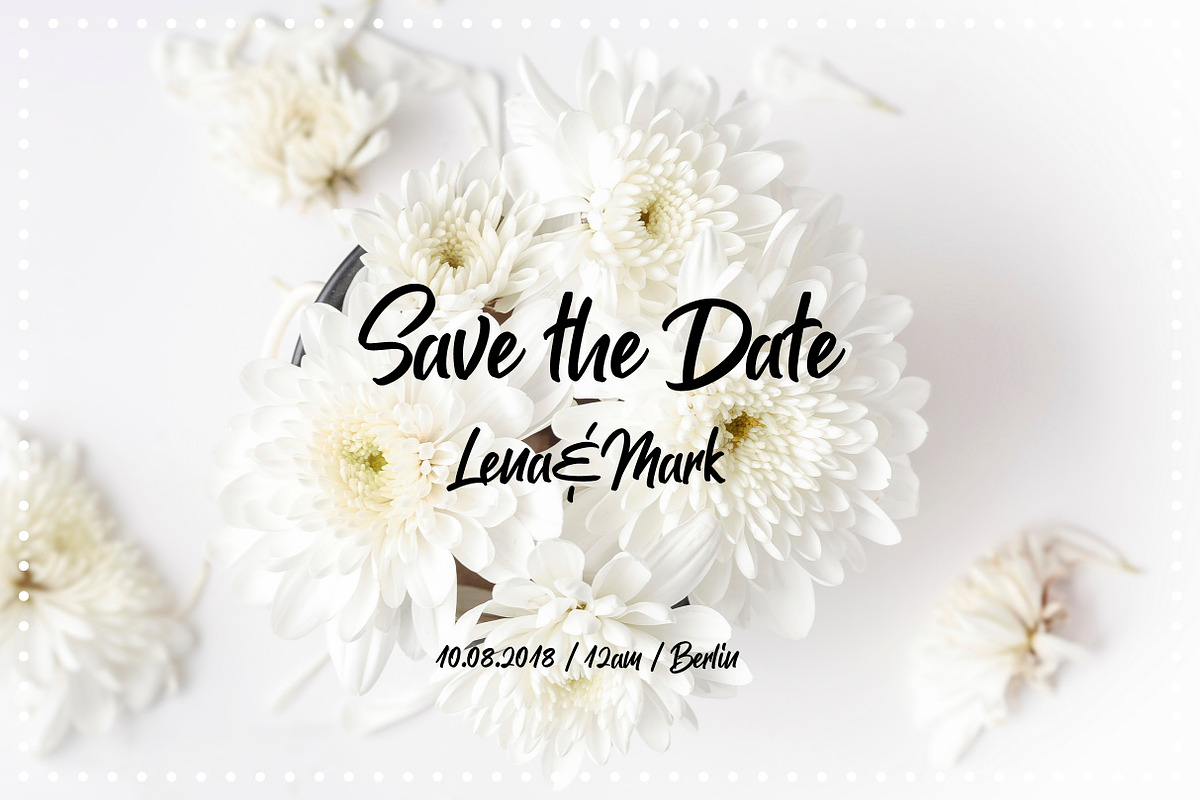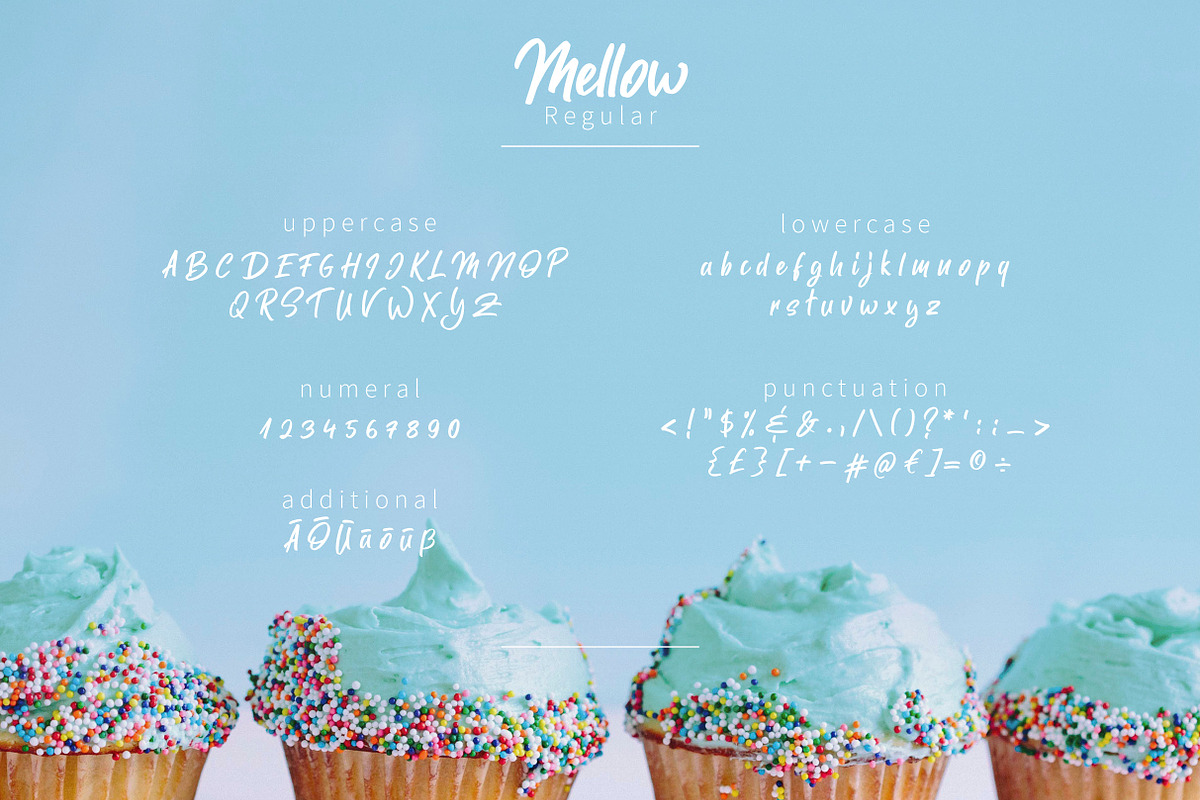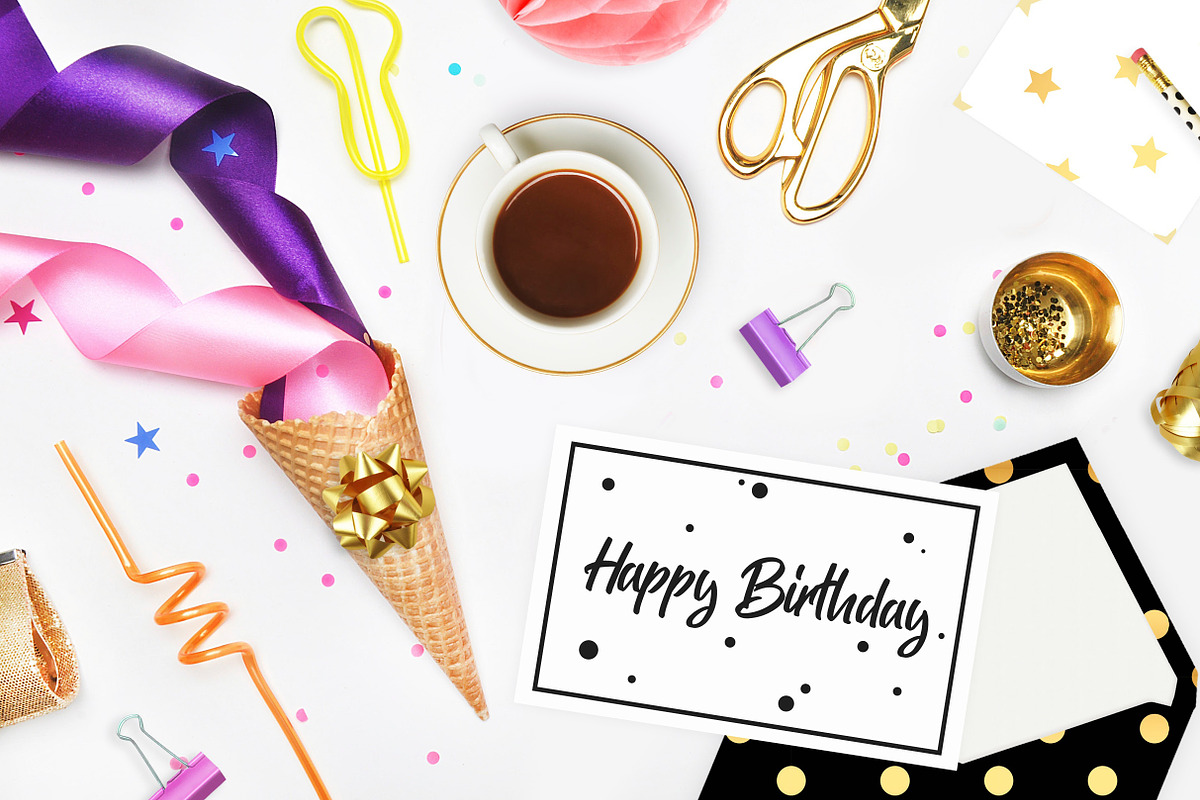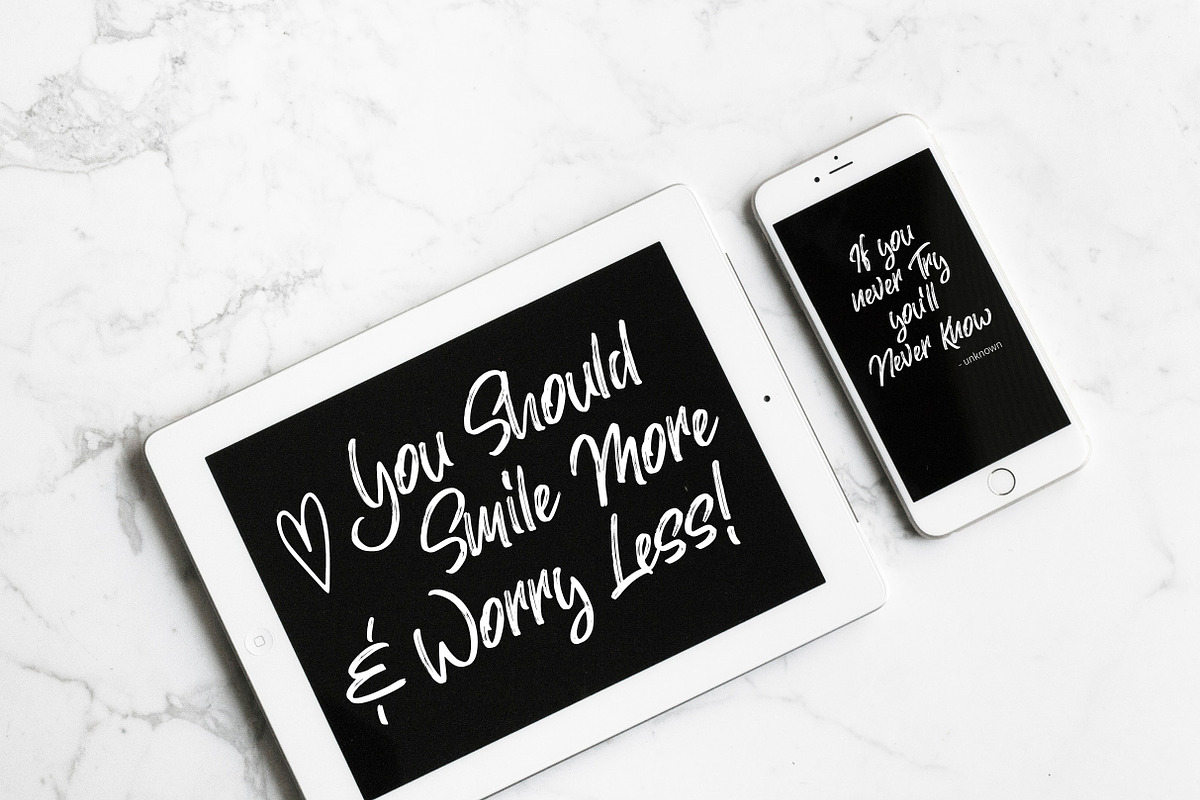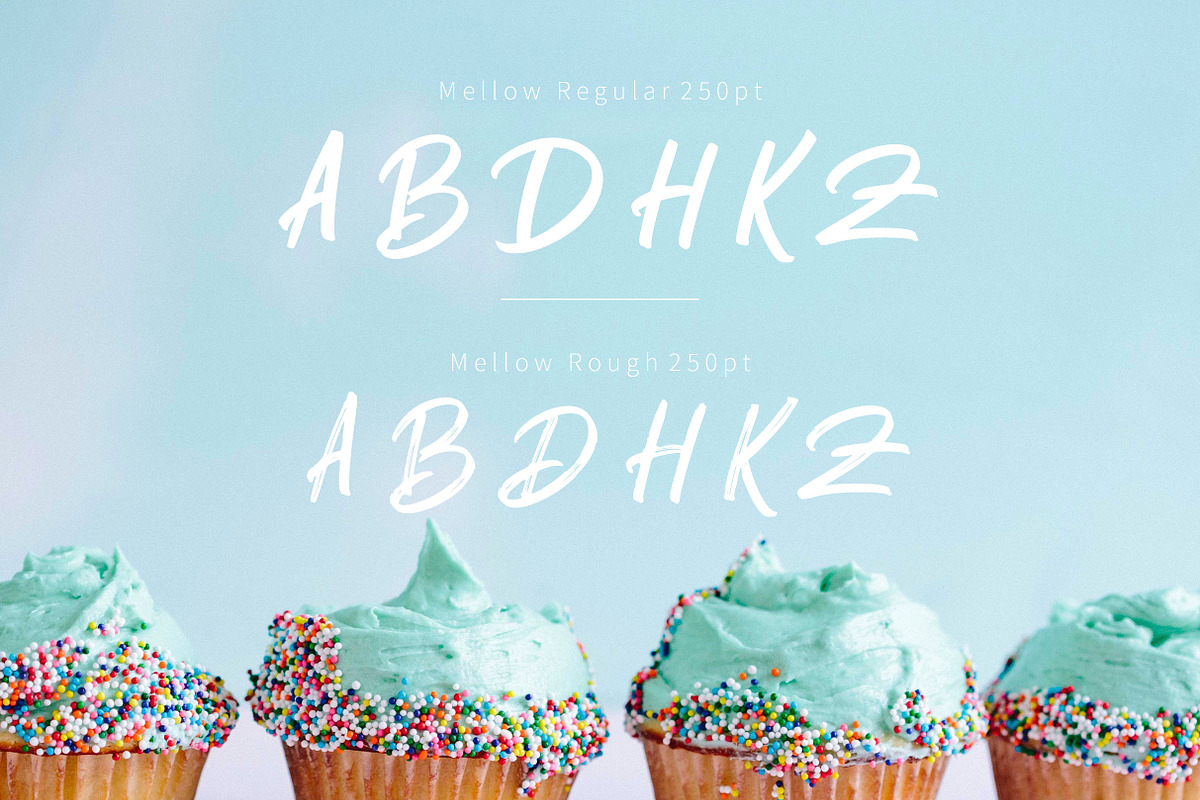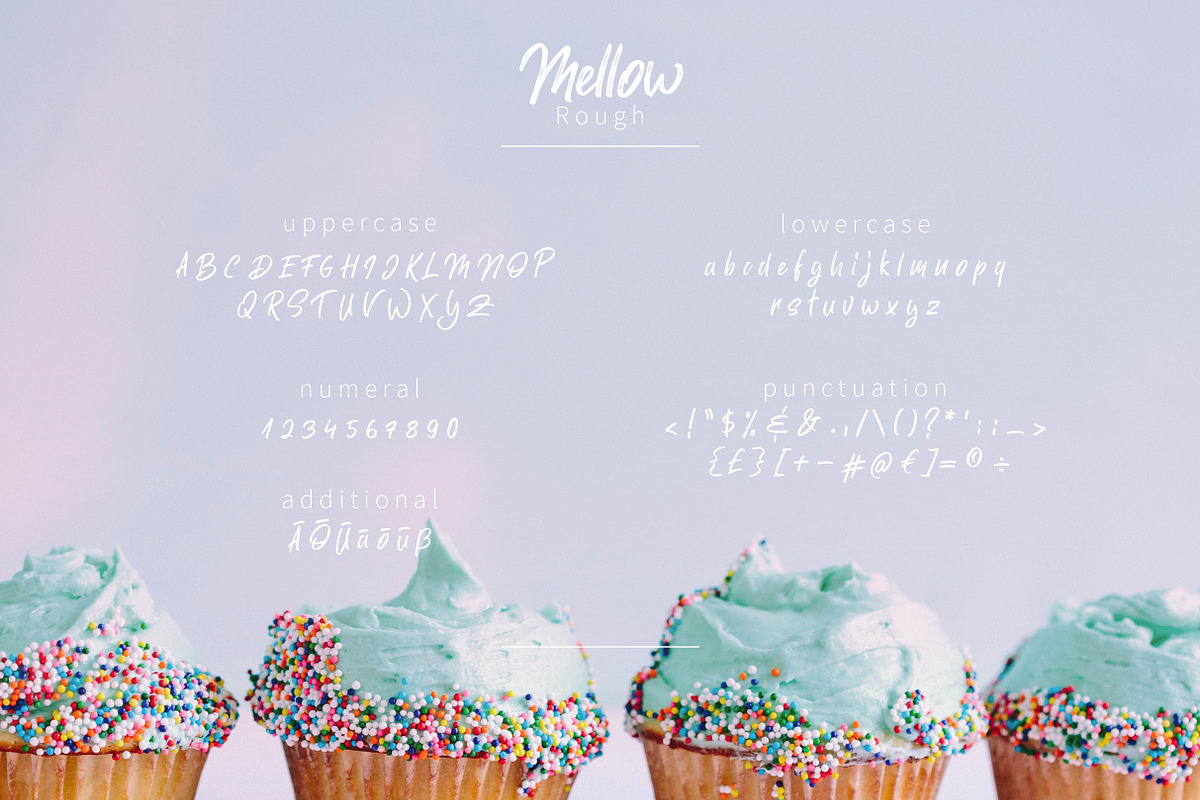
Mellow. Brush Font. Two Styles
Hey! I made a new brush font! It's awesome for invitations, greeting cards, headers, product packaging or quotes! Hope you enjoy using it.